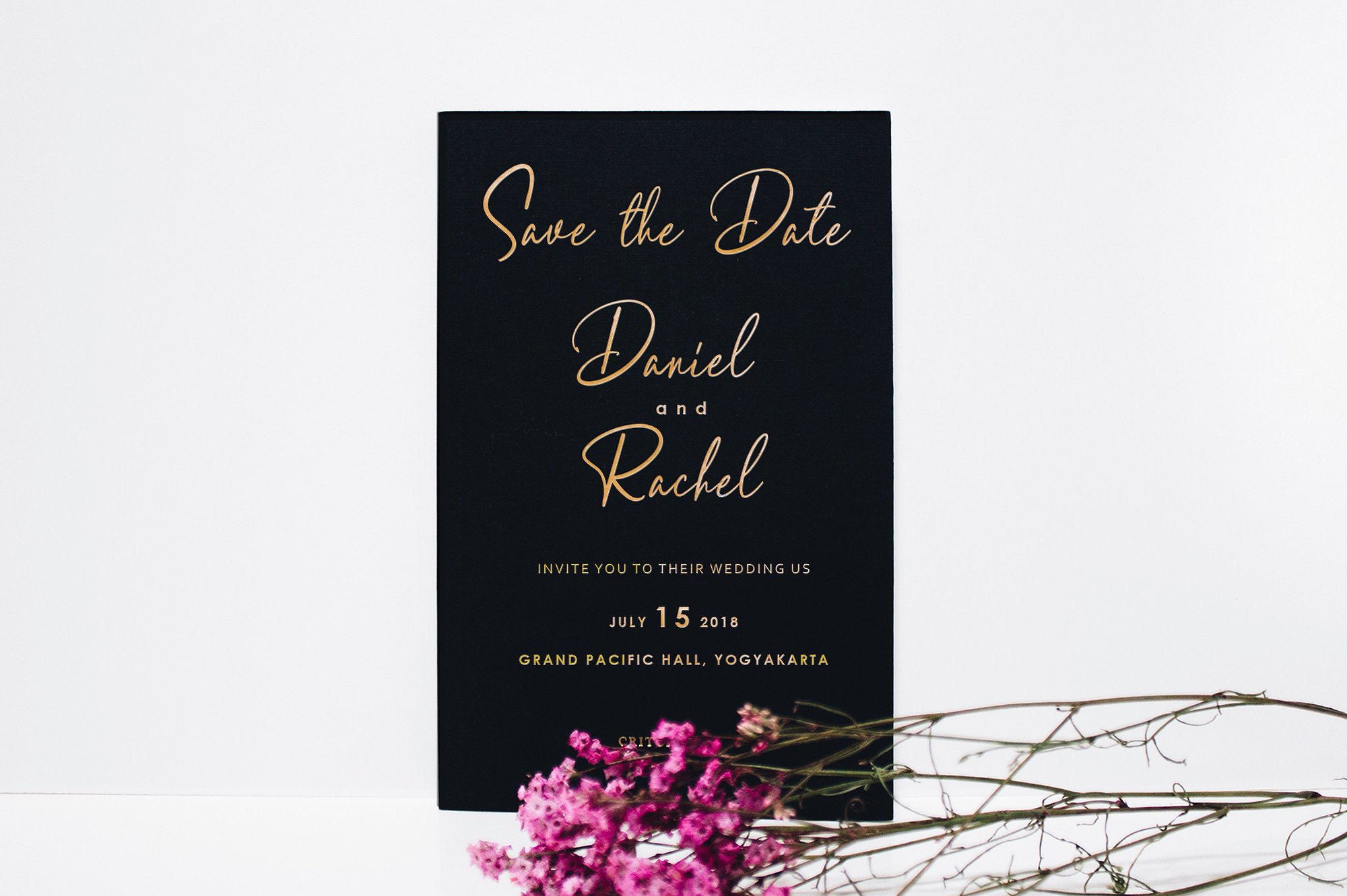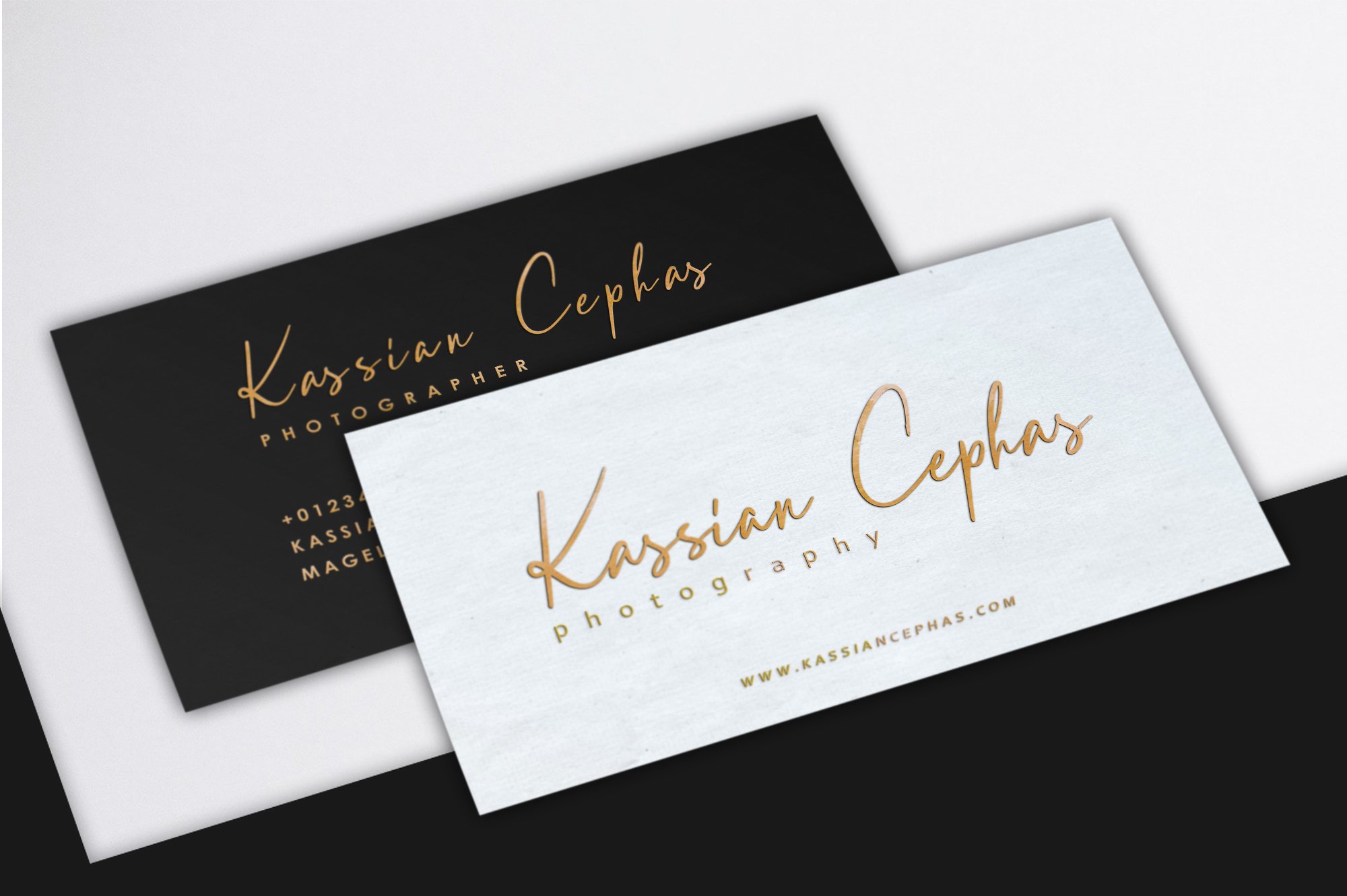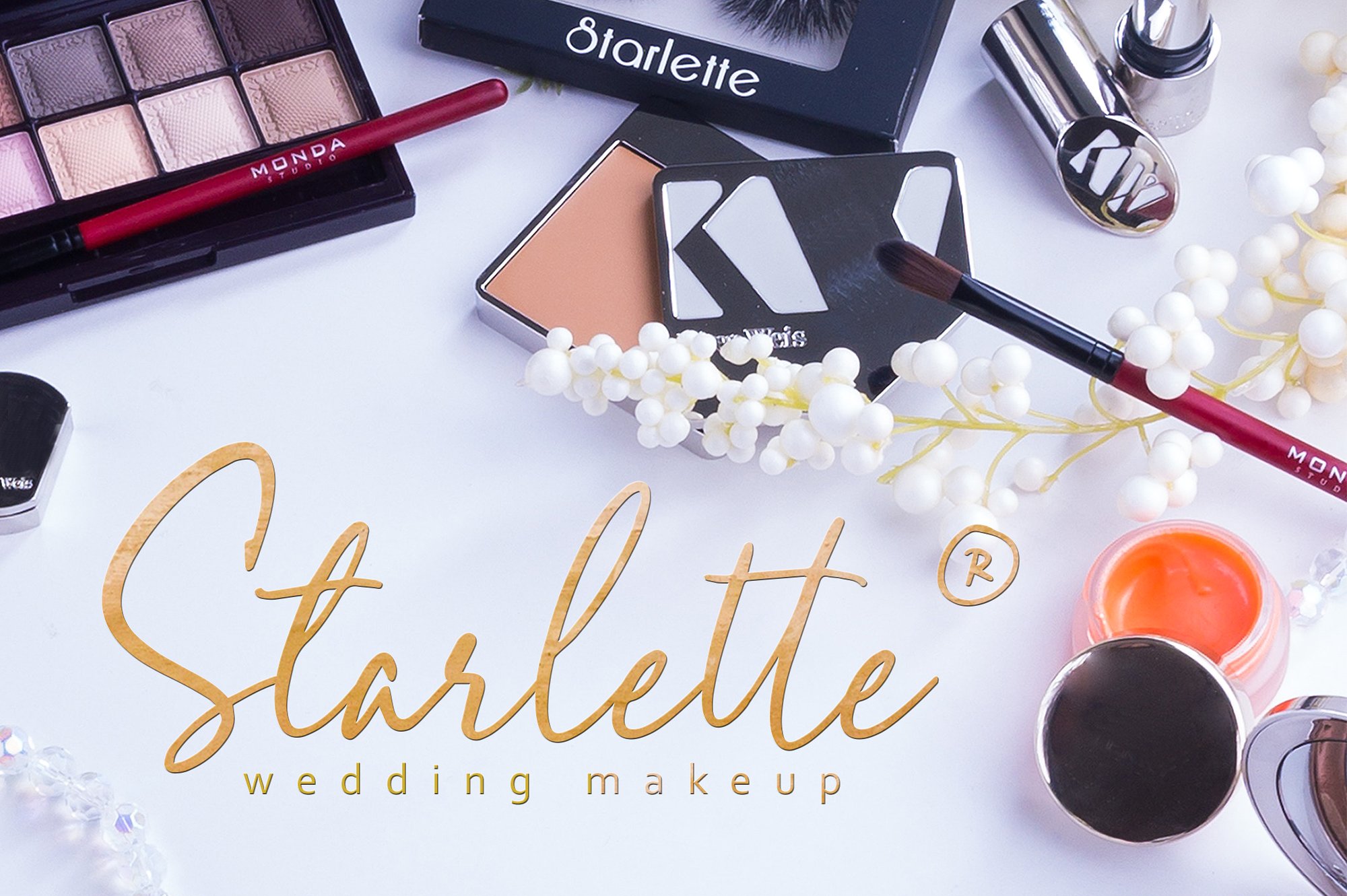
Arthurdale Handwriting Font
Say Hello Guy’s … Introducing Arthurdale Font. Arthurdale is a elegant script fonts from handwriting caligraphy completely with some beautifull ligature. A work that is purely a result of handwriting, has a natural characteristic. this is perfect for invitations, signatures, blogs, social media, business cards, product brands.